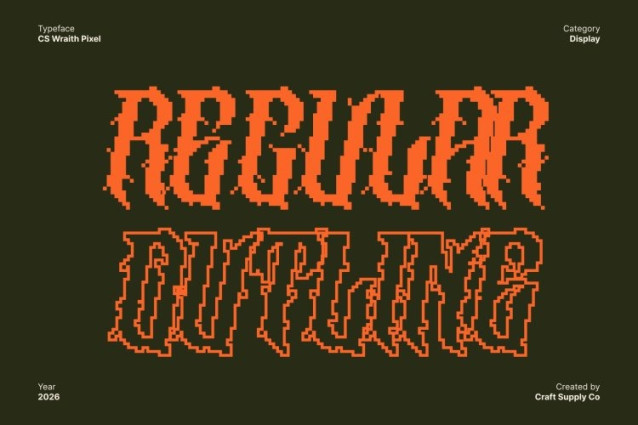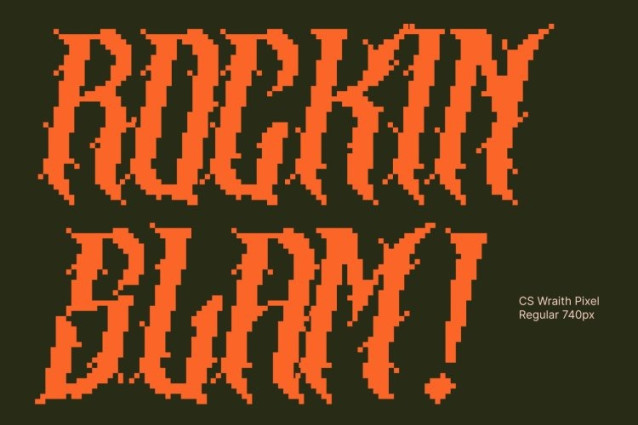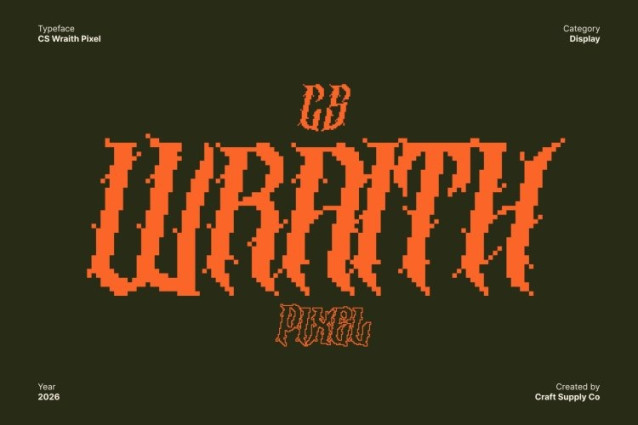
CS Wraith Pixel Font
CS Wraith Pixel Font This is a raw and aggressive black metal display font forged from chaos, distortion, and digital brutality. Defined by jagged spikes, uneven strokes, and a rigid pixel-based structure, this font embodies the unrestrained energy of extreme music. Built in a bitmap style, each letter feels sharp, hostile, and uncompromising making it a powerful choice for designs that demand darkness.
Chaotic Pixel Strokes with an Unforgiving Edge
Its harsh pixel geometry mirrors the visual language of underground metal culture wild, sharp, and unapologetically aggressive. The distressed appearance and irregular rhythm introduce a handcrafted brutality, while the pixel construction adds a cold, digital edge that intensifies its menacing presence.
Perfect for Band Logos and Extreme Visuals
Designed for the world of black metal and extreme art, thrives in band logos, album covers, concert posters, merchandise, game visuals, and dark-themed branding. Its brutal bitmap shapes and intense typographic rhythm command attention, making it an ideal weapon for rebellious, alternative, and anti-mainstream aesthetics.
Dark, Fearless, and Uncompromising
This is not a font for the faint-hearted it is a declaration of defiance and creative chaos. Embracing imperfection, aggression, and raw digital energy, it captures the untamed spirit of black metal and underground culture. Use this font to unleash bold emotion and give your designs a dark, unforgettable edge through a savage pixel aesthetic.